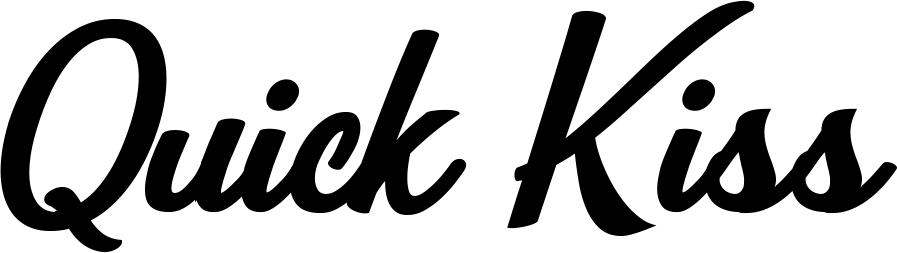
Quick Kiss Font
An aesthetically designed baseball font, Quick Kiss highlights your typography with a natural and intimate quality via its round elements and curvy lines.
The lower readability of your text is not much of a drawback than an opportunity to stick out and call attention. So feel free to take advantage of this baseball script font for your greeting cards, letters, posters, website headers, and things of that sort.